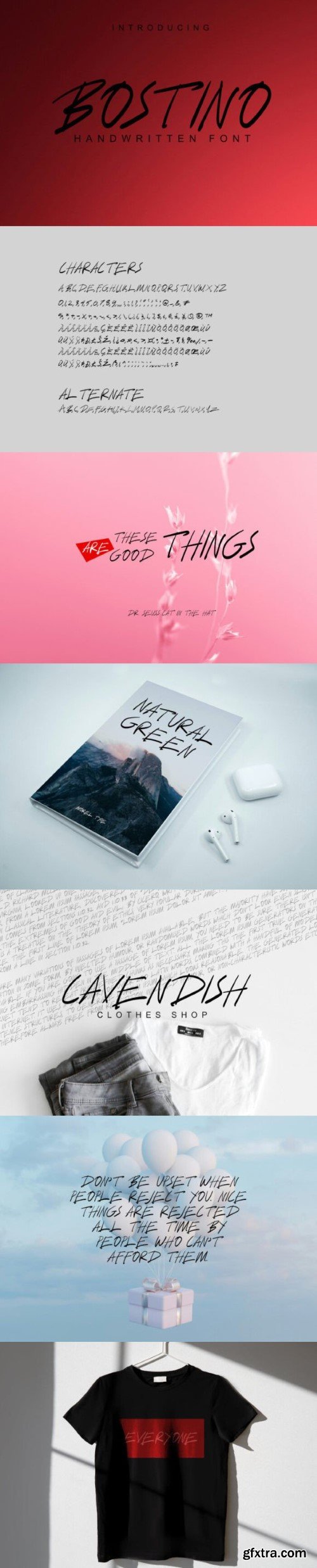
博思托尼字体
Bostino is a handwritten font in all caps, which exudes abstractness and freedom. Its irregular lines make it an ideal choice for today’s digital and print designs, ensuring legibility and visual impact. With its versatile and modern aesthetic, Bostino is perfect for conveying a sense of freedom.